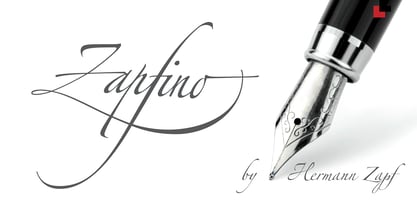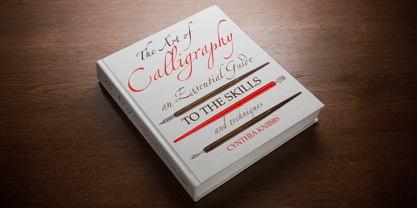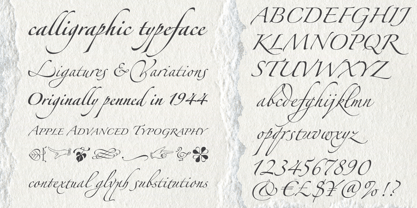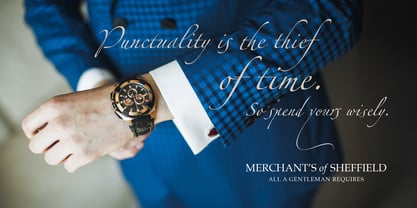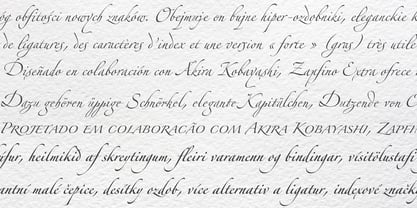
Zapfino® Extra
by Linotype
The Zapfino Extra Font Family was designed by Hermann Zapf and published by Linotype. Zapfino Extra contains 12 styles and family package options.
Today's digital font technology has allowed renowned font designer and calligrapher Hermann Zapf to realize a dream he first had more than fifty years ago: to create a typeface that would come very close to the freedom and liveliness of beautiful handwriting. The basic Zapfino font family, released in 1998, consists of four alphabets with many additional stylistic alternates that can be freely mixed together to emulate the variations in handwritten text. In 2003, Zapf completed Zapfino Extra, a large expansion of the Zapfino family. Designed in collaboration with Akira Kobayashi, Zapfino Extra has a cornucopia of new characters. It includes exuberant hyper-flourishes, elegant small caps, dozens of ornaments, more alternates and ligatures, index characters, and a very useful "forte" (bold) version. Use Zapfino to produce unusual and graceful advertisements, packaging, and invitations.